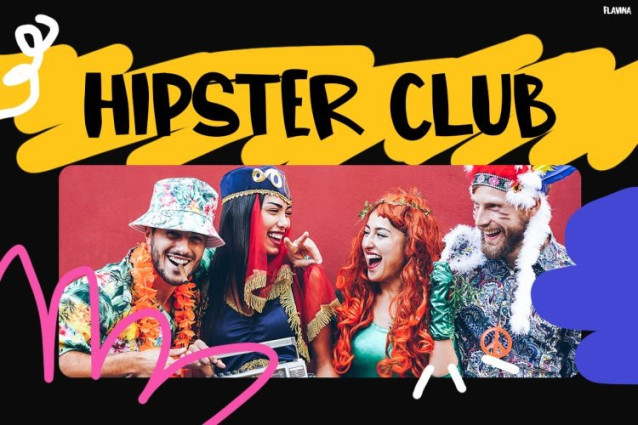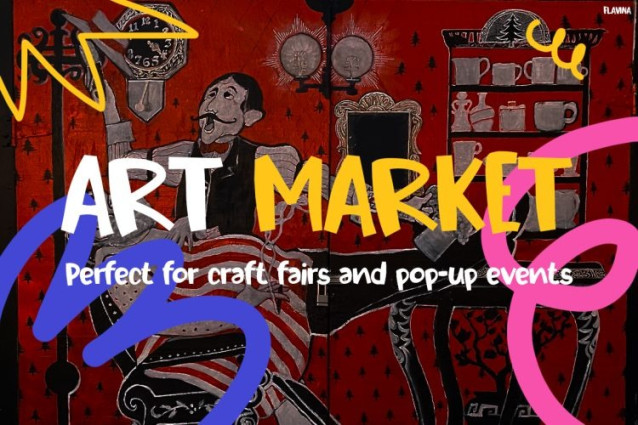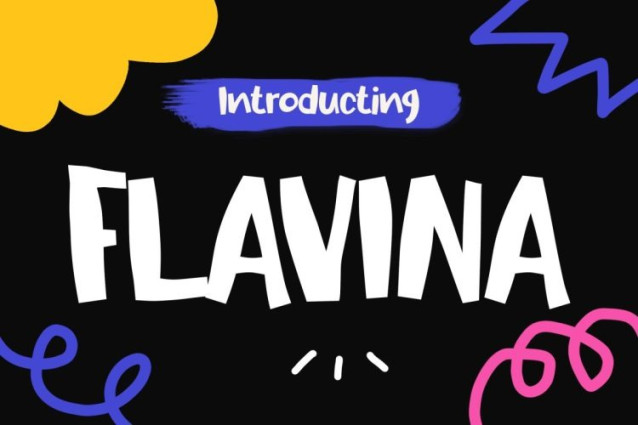
Flavina Font
Flavina Font is a bold, funky display typeface that bursts with color, energy, and playful attitude. Moreover, its chunky letterforms and lively curves create a standout visual that feels fresh and expressive. In addition, the mix of quirky shapes and dynamic style gives every design a fun, handmade vibe. Not only does it grab attention instantly, but it also keeps text readable and impactful. As a result, this font becomes the perfect tool to create vibrant, youthful, and eye-catching visuals across any creative project.
Kids Font Flavina brings a high-energy, pop-style aesthetic that fits perfectly with modern creative trends. For instance, it shines in music posters, festival branding, kids-themed designs, and social media graphics. Furthermore, its playful personality adds excitement and emotion, making every layout feel alive and engaging. Because of this, it works great for posters, event promotions, photo booth props, and bold visual campaigns. In short, Flavina transforms ordinary text into something loud, fun, and unforgettable.
This font is ideal for designers, event organizers, and content creators who want to stand out with colorful and expressive visuals. In particular, it suits kids brands, party themes, festivals, art markets, and creative campaigns. Additionally, it’s perfect for anyone who loves funky, retro-pop vibes with a modern twist. Therefore, whether you’re designing for entertainment, branding, or social content, Flavina helps you deliver strong personality and visual impact.
Ultimately, Kids Font Flavina is more than just a font—it’s pure creative energy. In fact, it makes your designs louder, brighter, and more fun in seconds. So, if you want to capture attention, boost engagement, and create unforgettable visuals, this font is your go-to choice. Don’t wait—bring your ideas to life with bold, funky style today!